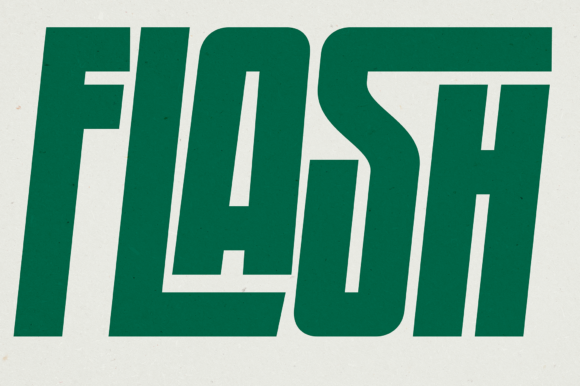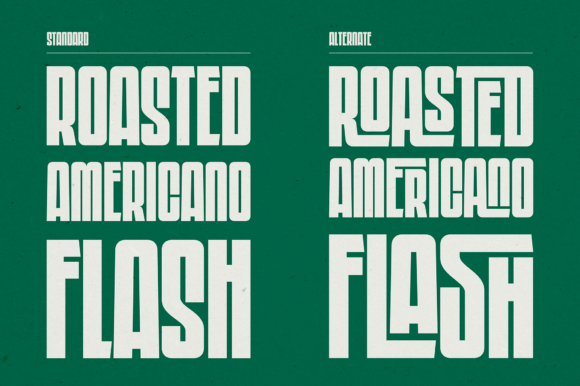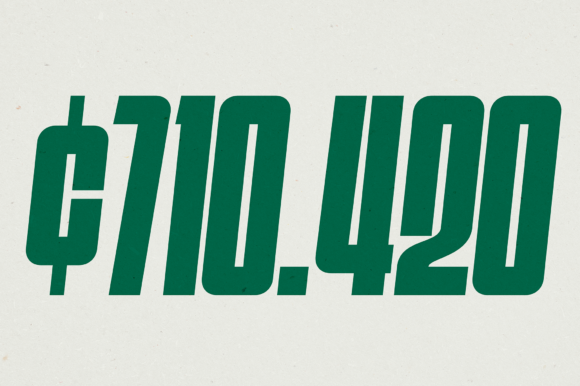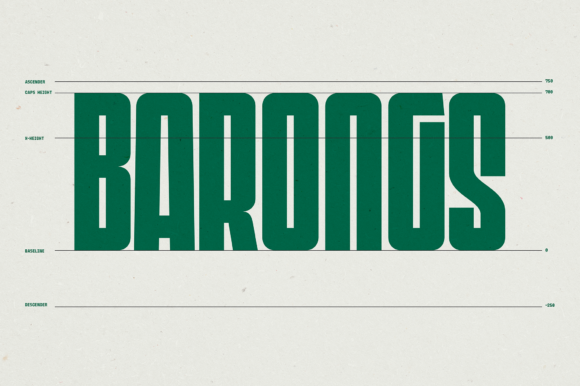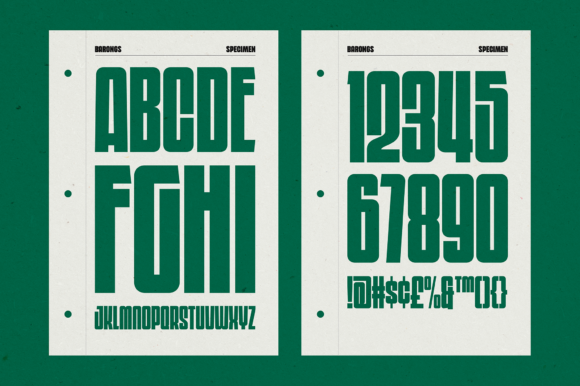
Introducing Barongs Font: The Ultimate Display Font for Bold Designs
Are you tired of using the same old fonts for your designs? Look no further! Barongs Font is here to take your creative projects to the next level. This cool, bold, and thick lettered display font is perfect for making a statement. In this article, we’ll dive into the features and benefits of Barongs Font, and explore how it can elevate your designs.
What is Barongs Font?
Barongs Font is a display font designed to make a bold impact. Its thick, chunky letters are perfect for grabbing attention and adding a touch of personality to your designs. Whether you’re a designer, crafty DIY enthusiast, or simply someone who loves to create, Barongs Font is an excellent addition to your font library.
Key Features of Barongs Font
- Bold and Thick Letters: Barongs Font features bold, thick letters that are perfect for creating eye-catching designs.
- Cool and Modern Style: The font has a cool, modern style that’s perfect for designs that require a fresh and trendy look.
- Versatile: Barongs Font is suitable for a wide range of designs, from t-shirts and sportswear to logos, advertisements, and clothing.
- Easily Readable: Despite its bold style, Barongs Font is easily readable, making it perfect for designs that require a clear message.
Use Cases for Barongs Font
Barongs Font is an incredibly versatile font that can be used in a variety of design projects. Here are some use cases to get you started:
- T-Shirts and Apparel: Create eye-catching t-shirt designs that stand out from the crowd.
- Sportswear: Add a bold touch to sportswear designs, such as jerseys, hats, and more.
- Logos: Create bold, memorable logos that make a lasting impression.
- Advertisements: Use Barongs Font to create attention-grabbing ads that drive results.
- Clothing and Accessories: Add a personal touch to clothing and accessories, such as bags, hats, and more.
Benefits of Using Barongs Font
So why choose Barongs Font for your designs? Here are just a few benefits:
- Adds Personality: Barongs Font adds a touch of personality to your designs, helping them stand out from the crowd.
- Increases Visibility: The bold, thick letters of Barongs Font make it easy to grab attention and increase visibility.
- Versatile: Barongs Font can be used in a wide range of designs, making it a valuable addition to your font library.
- Easily Customizable: Barongs Font is easily customizable, allowing you to adjust the font to fit your design needs.
Tips for Using Barongs Font
Here are a few tips for getting the most out of Barongs Font:
- Use it Sparingly: Barongs Font is bold and attention-grabbing, so use it sparingly to avoid overwhelming your design.
- Experiment with Colors: Try pairing Barongs Font with different colors to create a unique look.
- Mix and Match: Combine Barongs Font with other fonts to create a visually interesting design.
In conclusion, Barongs Font is a bold, modern display font that’s perfect for designers and crafters looking to add a touch of personality to their designs. With its thick, chunky letters and versatile style, Barongs Font is suitable for a wide range of design projects. Whether you’re creating t-shirts, logos, advertisements, or clothing, Barongs Font is an excellent choice. So why wait? Download Barongs Font today and take your designs to the next level!